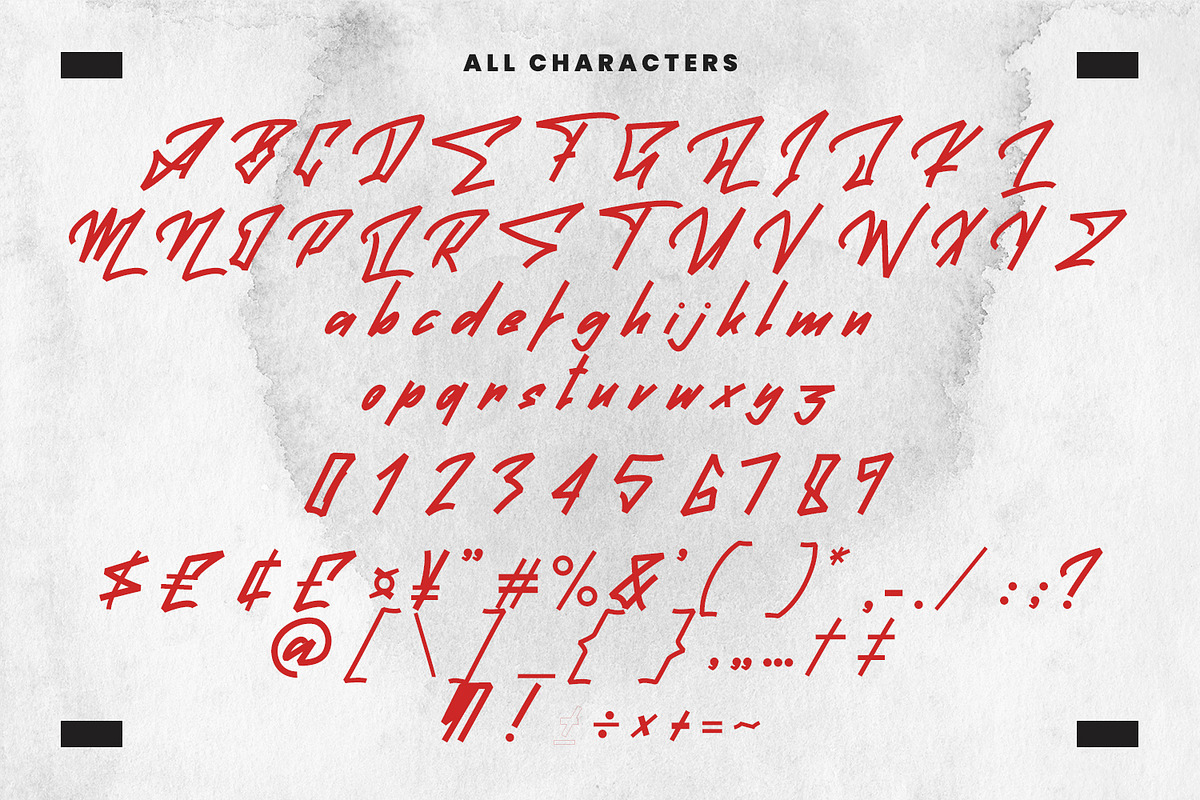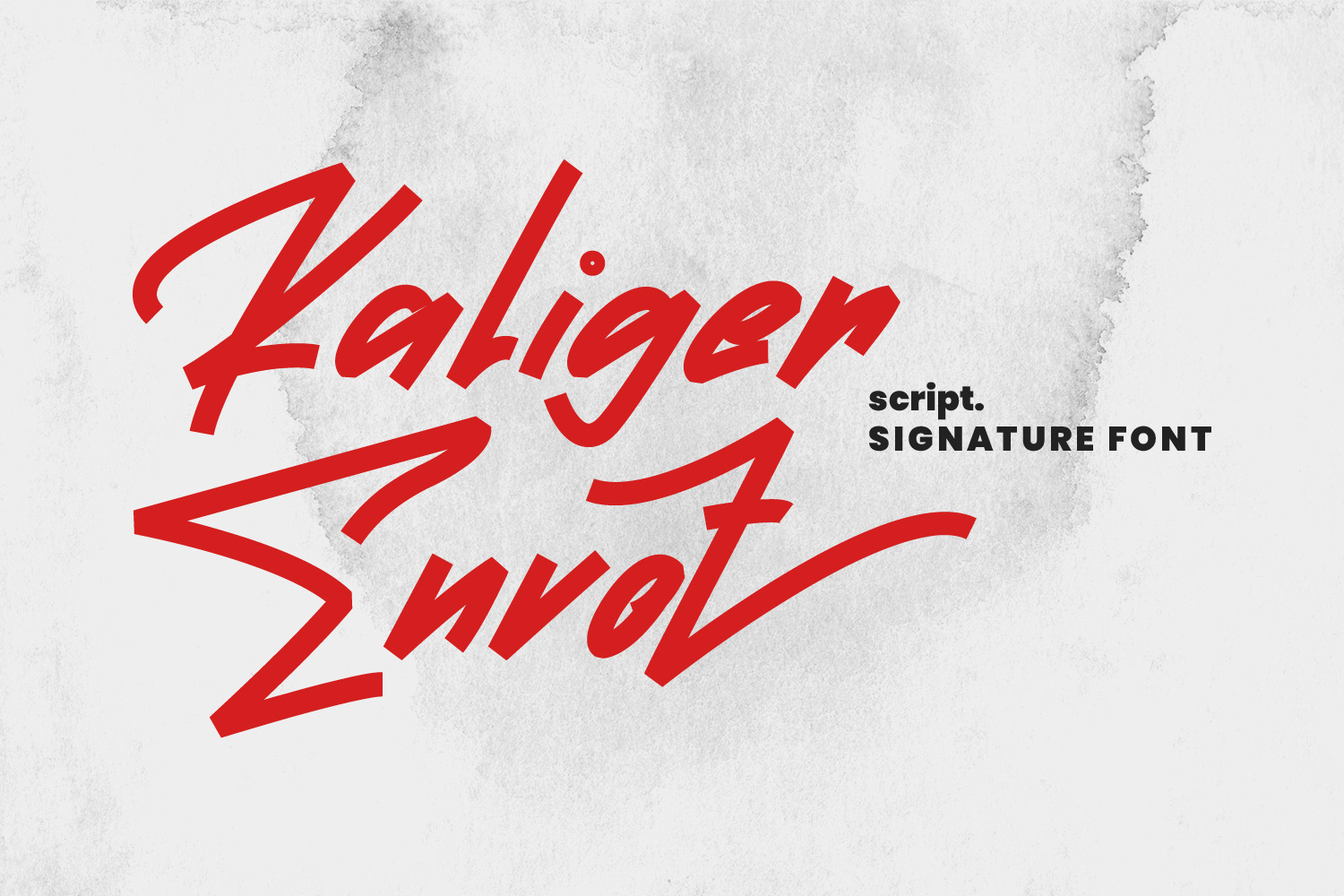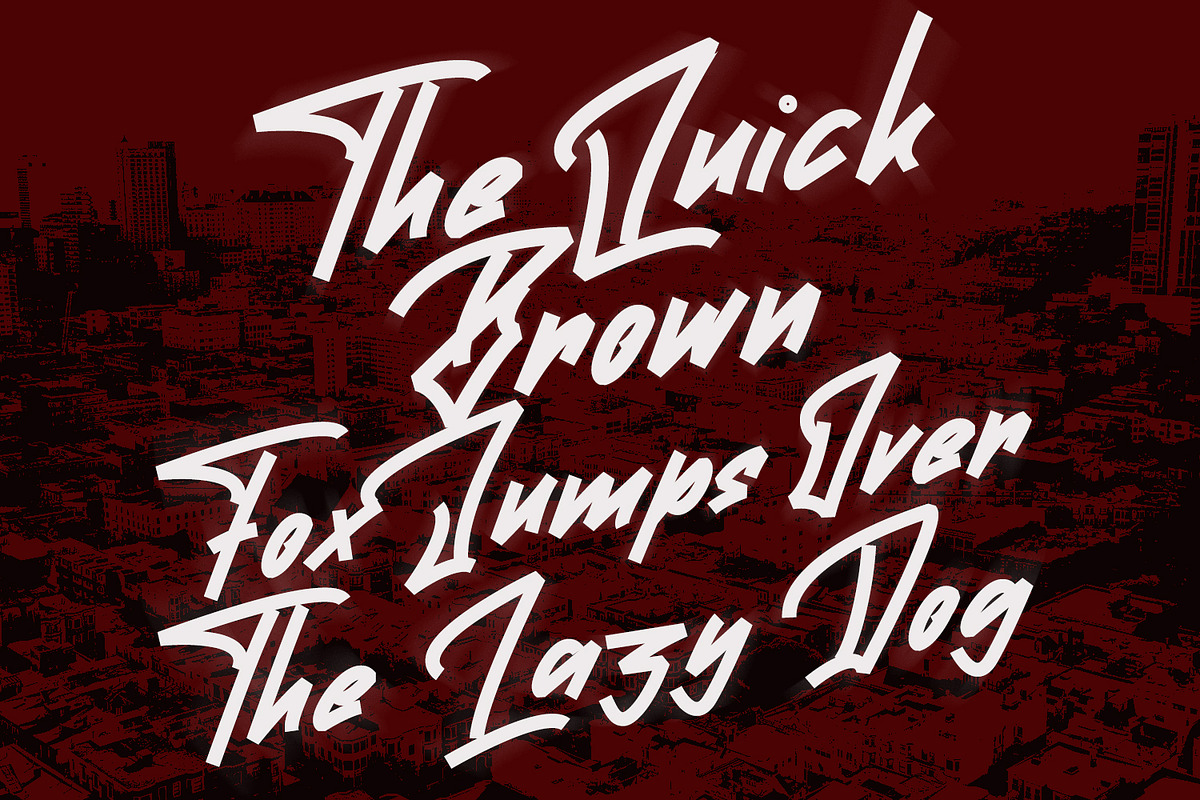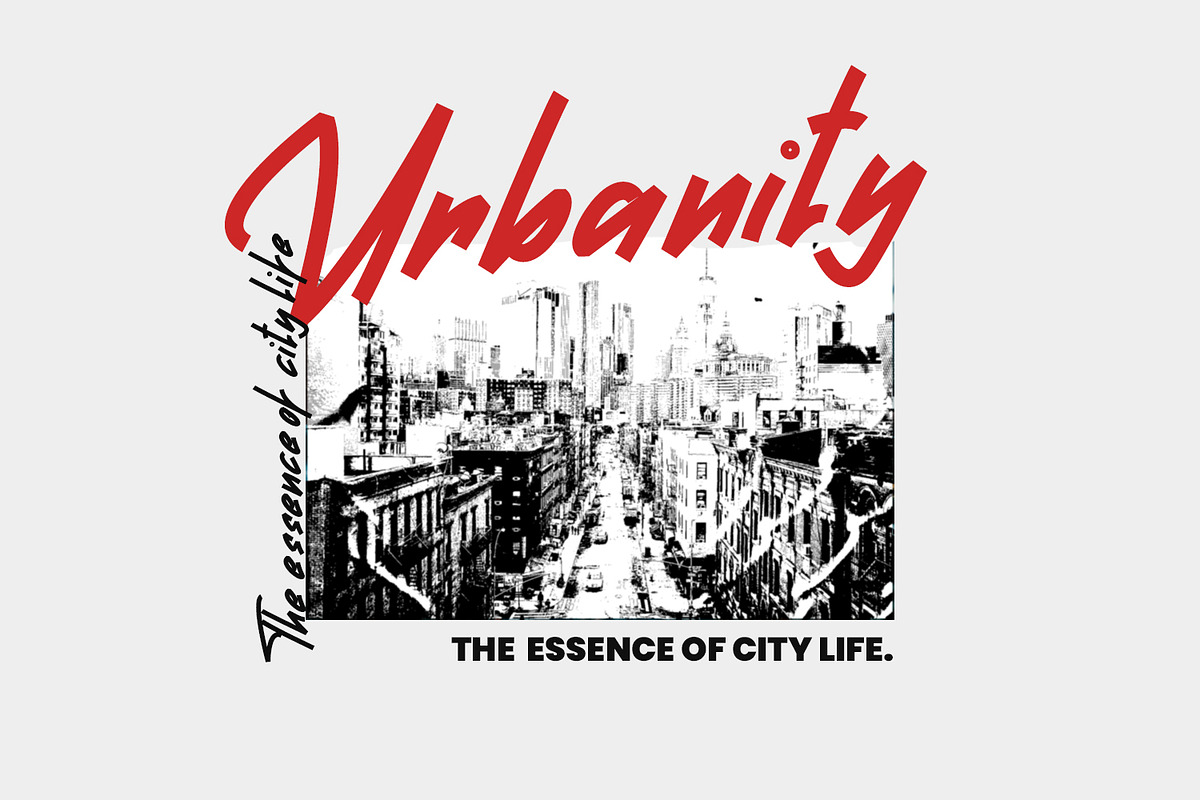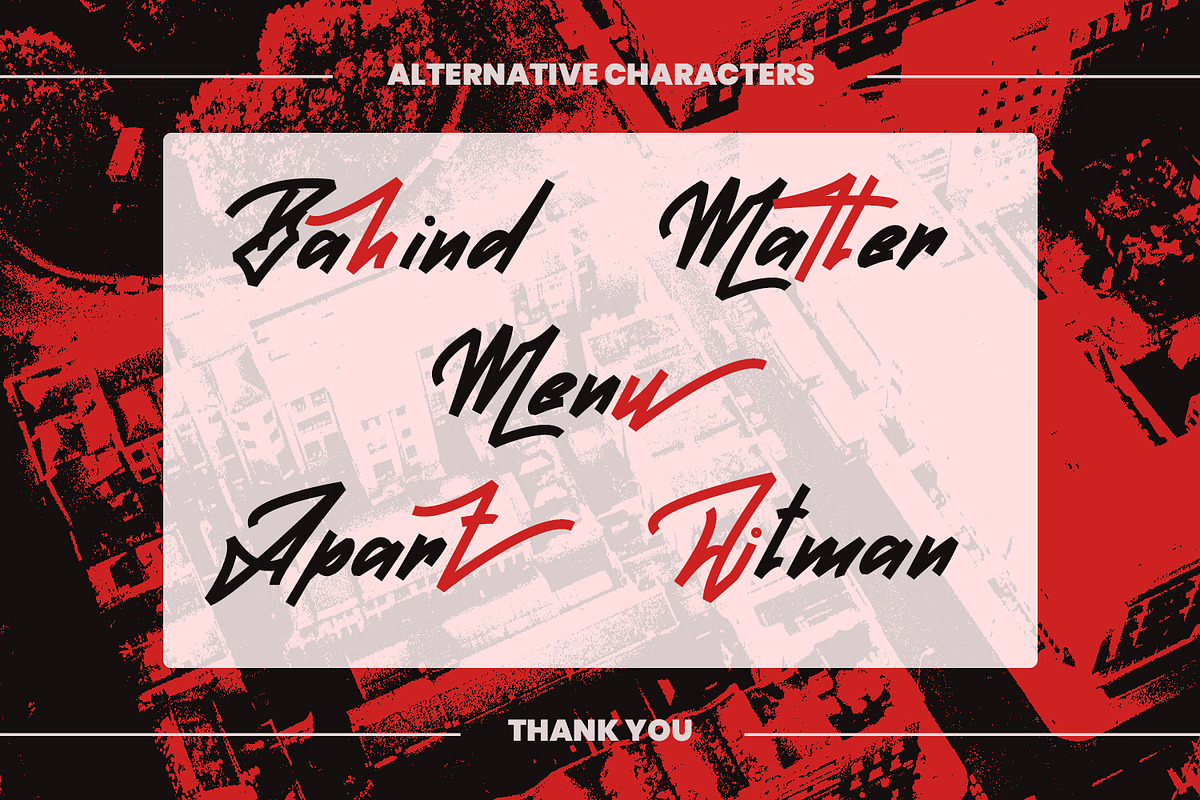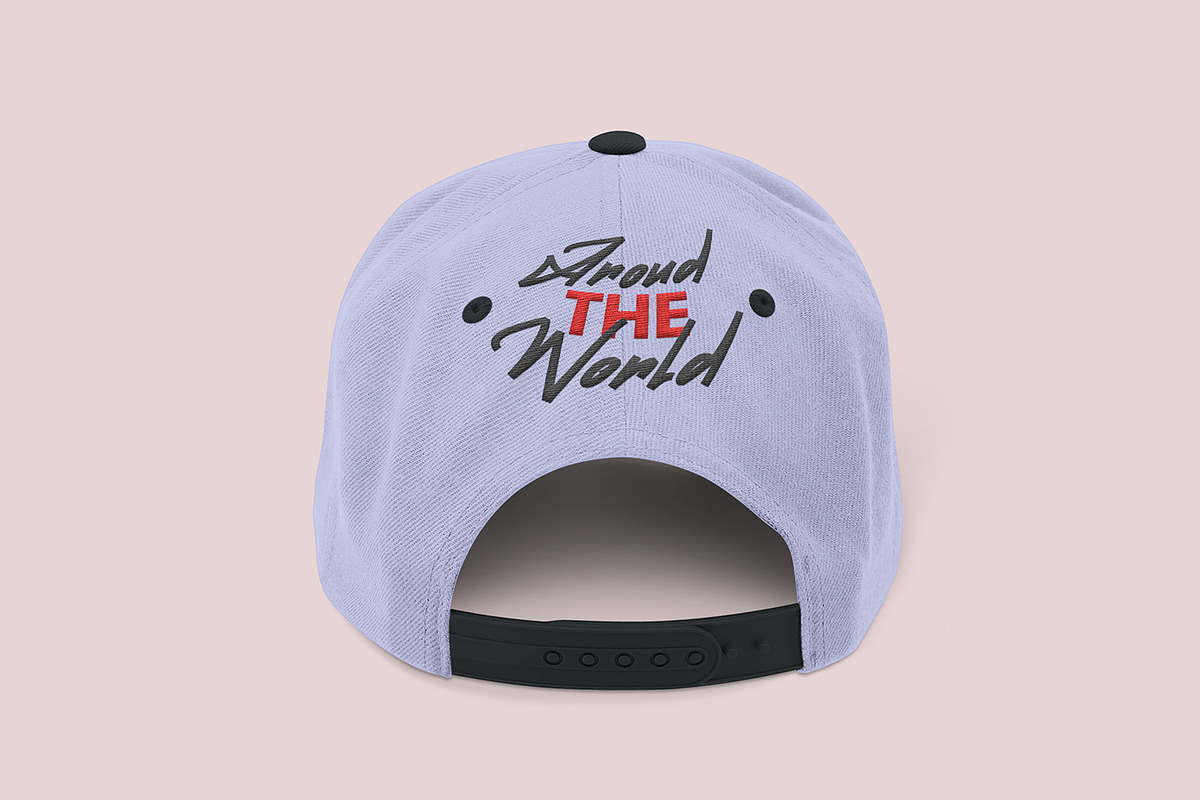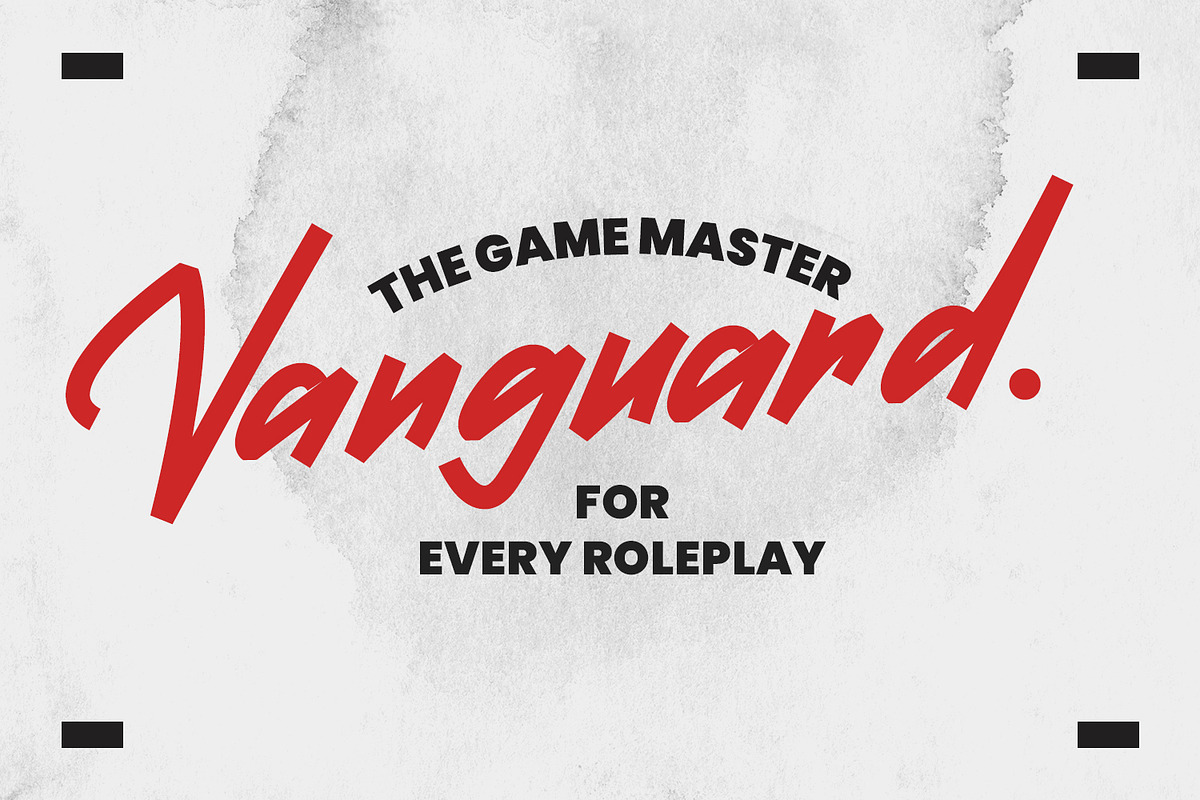
Kaliger Envot Signature Script Font
Kaliger Envot handmade signature display font, fun character with alternates and ligatures. To give you an extra creative work. Kaliger Envot handmade brush display font support multilingual language.